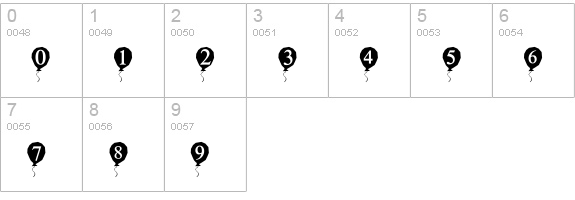
Amnon-Balloon Font Details
Introducing Amnon-Balloon font, a whimsical and playful typeface that will bring a touch of fun to your designs. This font features rounded edges and a bouncy, balloon-like appearance that is sure to capture attention. Perfect for adding a cheerful and lighthearted vibe to your projects, Amnon-Balloon font is a versatile choice for various creative applications. Whether you're designing greeting cards, invitations, posters, or social media graphics, this font will add a unique flair to your text. Its bold and distinctive look makes it stand out, while its easy readability ensures that your message is conveyed effectively. The best part? Amnon-Balloon font is available for free download at FontsMarket.com, making it accessible to everyone looking to add a touch of whimsy to their projects. So why wait? Download this charming font today and let your creativity soar!